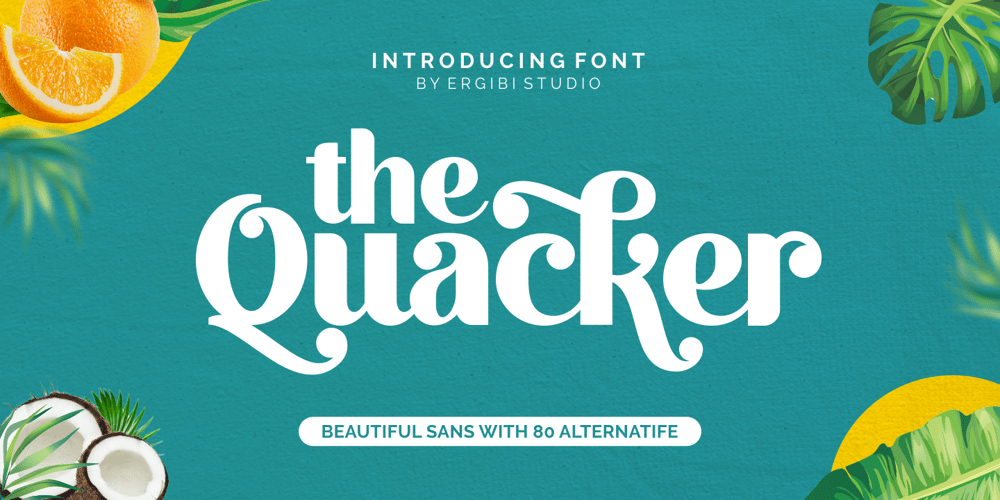
Quacker Font Family was designed by Riyadh Rahman and published by Ergibi Studio. Quacker contains 1 styles and family package options. Quacker is a display sans font and is equipped with 80 alternative characters that make this font look beautiful. Alternative letters are provided to make this font look sweet and classy. Quacker is very good for your work such as logos, brands, packaging, posters, invitations, social media, and ads.